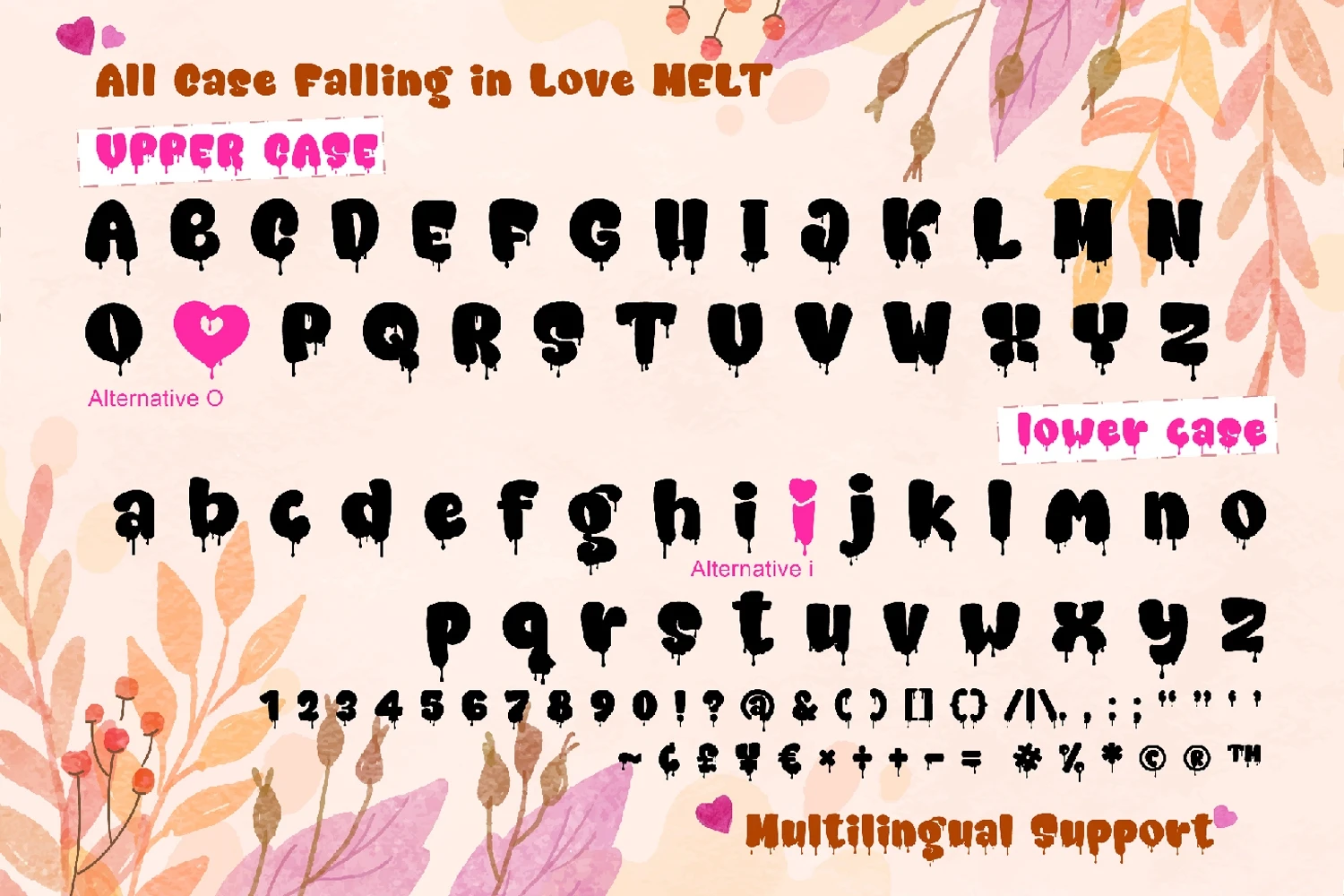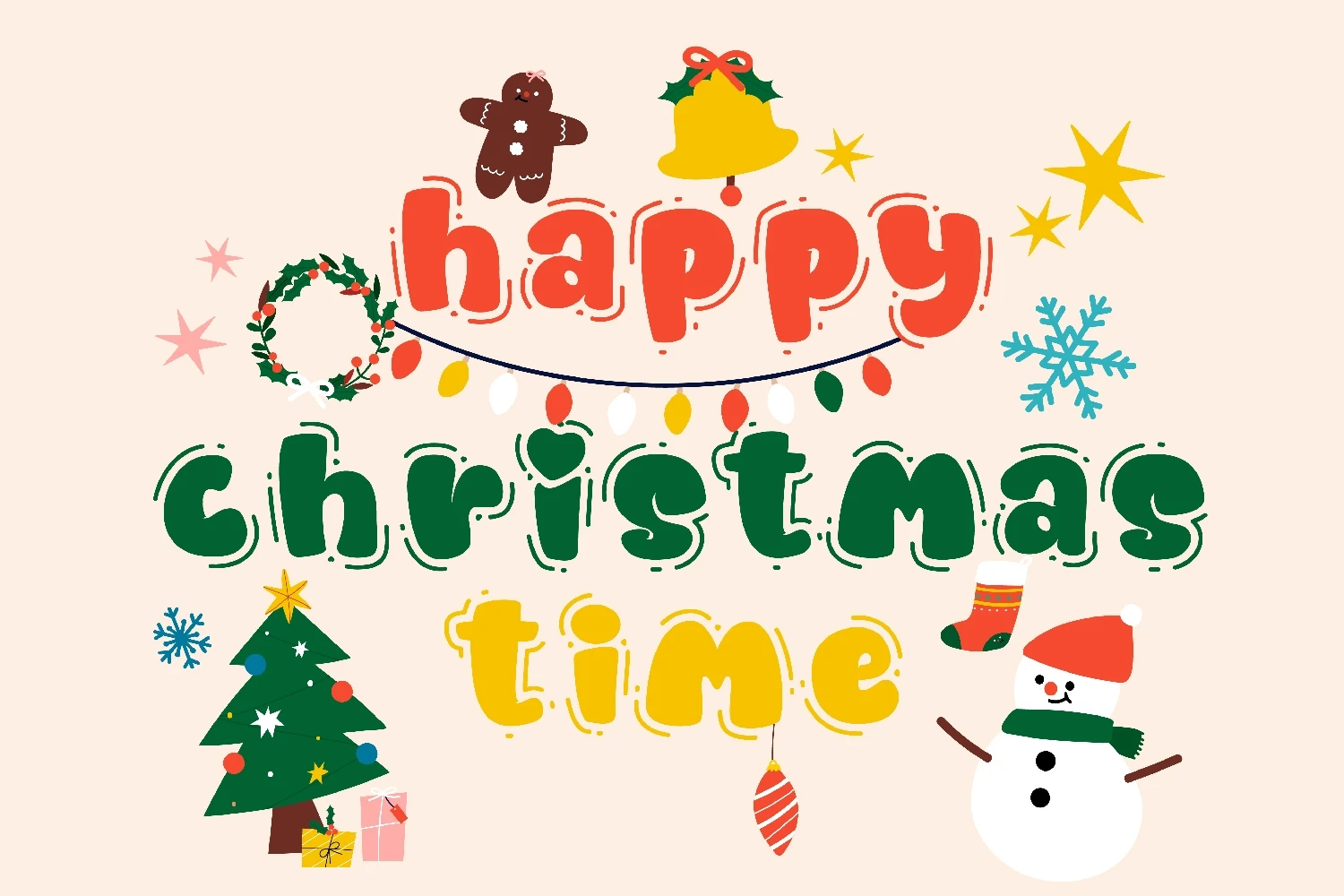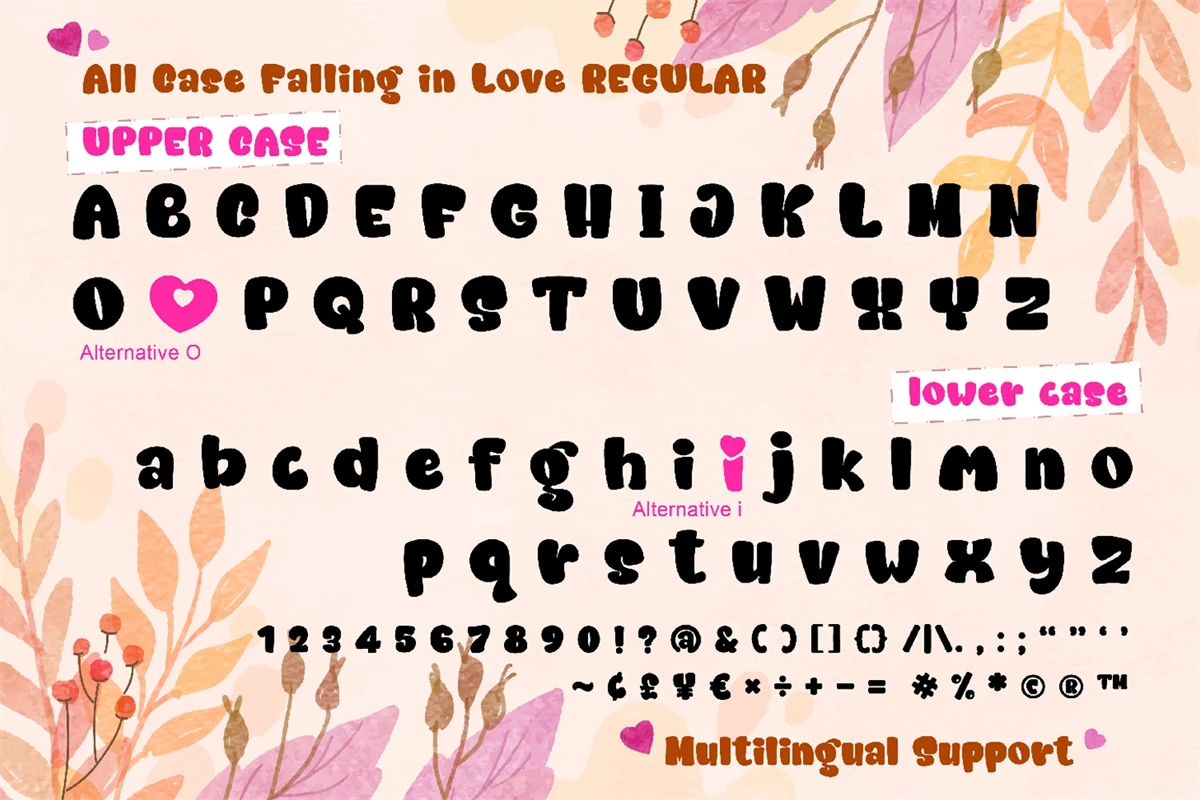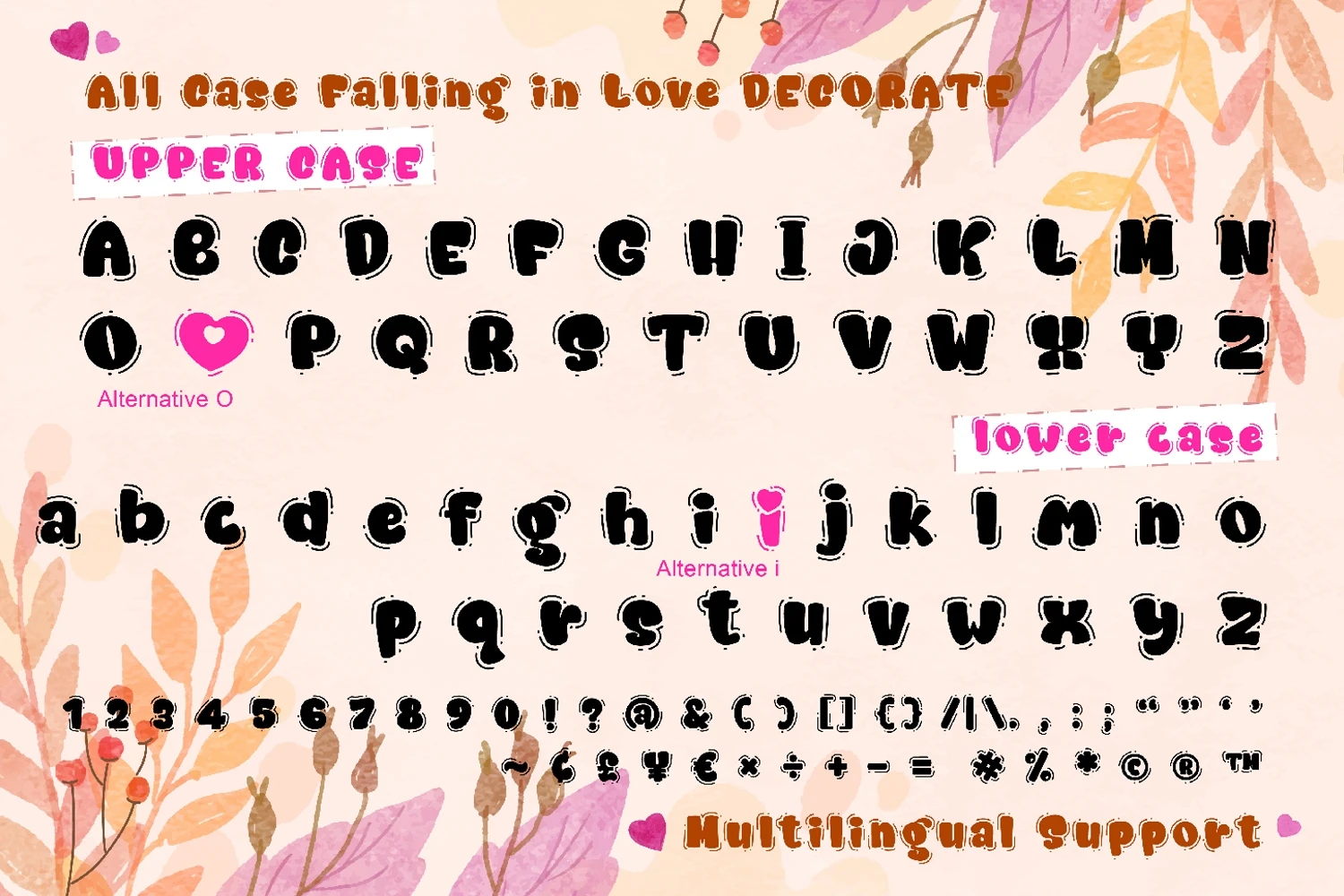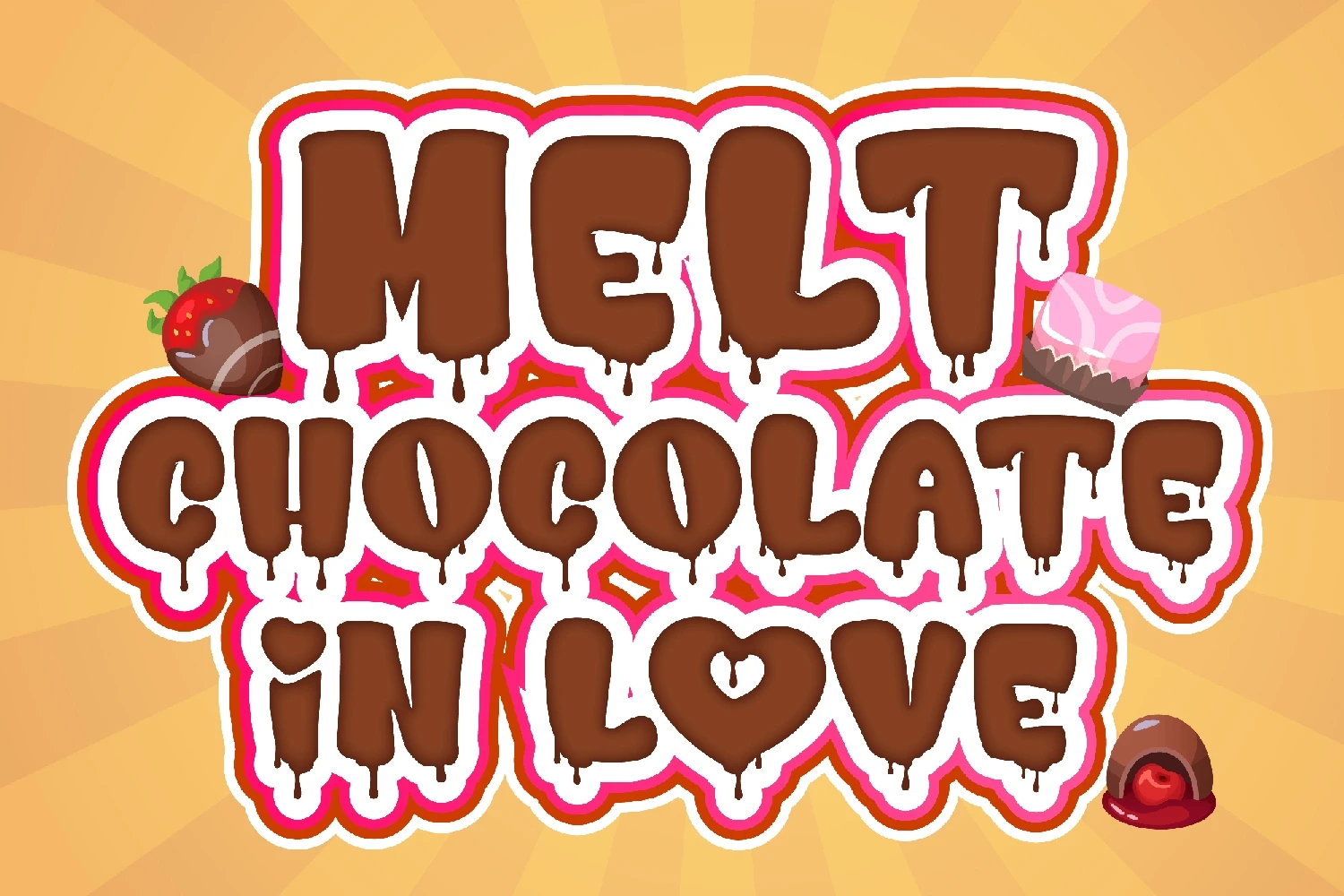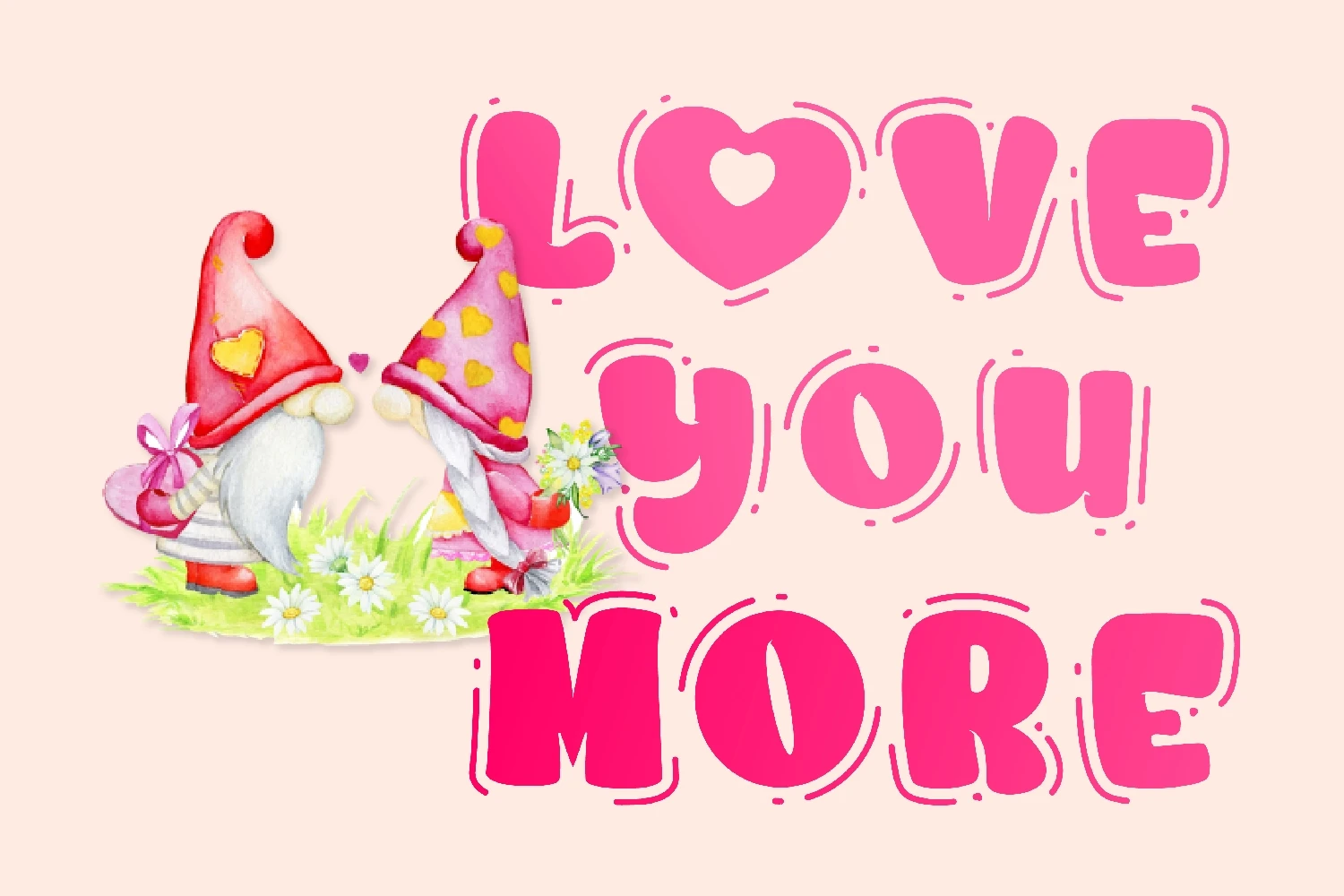
Falling In Love is a bubbly, chunky lettered, and friendly display font. It embodies playfulness and authenticity and is the perfect choice for any childrens activity or school design.